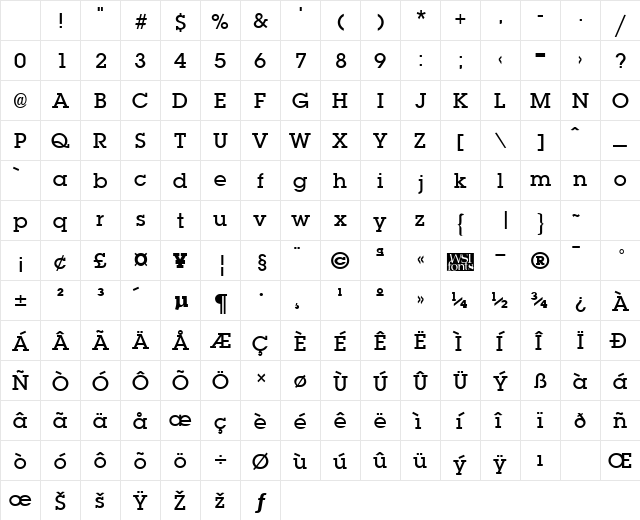
LaplandDemibold Regular Free Font
LaplandDemibold is a composed and adaptable typeface that performs quietly and consistently across a wide range of design contexts. Its bold stroke weight gives it real presence on the page.